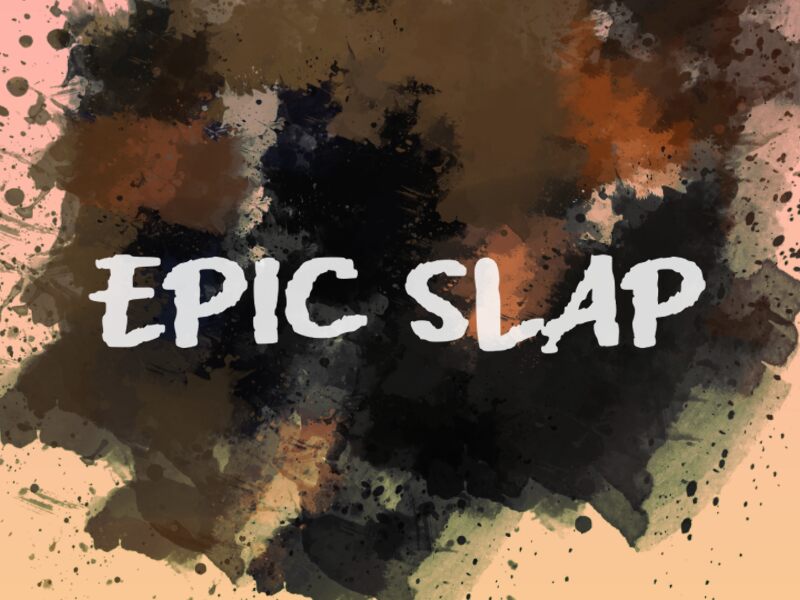
EPIC SLAP
Epic Slap, a captivating script font by wep, is here to make your designs stand out. With its trashy yet mesmerizing style, this semi-bold typeface adds a touch of edginess and attitude to any project. Its semi-expanded width enhances legibility while maintaining an element of uniqueness.
Perfect for album covers, streetwear brands, and rebellious campaigns, Epic Slap will bring an irresistible energy to your designs. Dare to be different with this bold and expressive font that leaves a lasting impression.